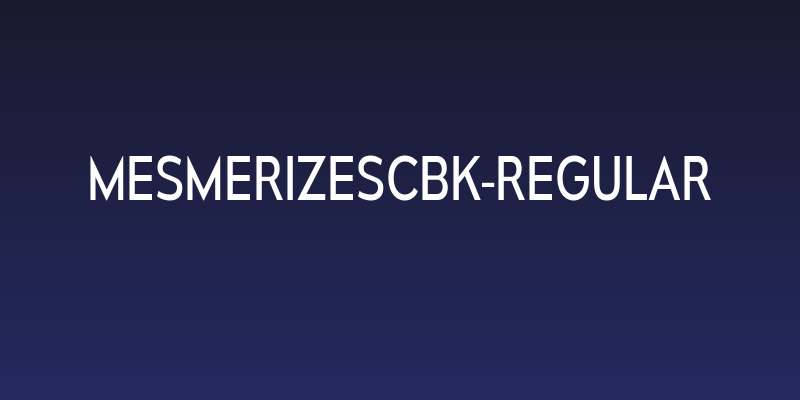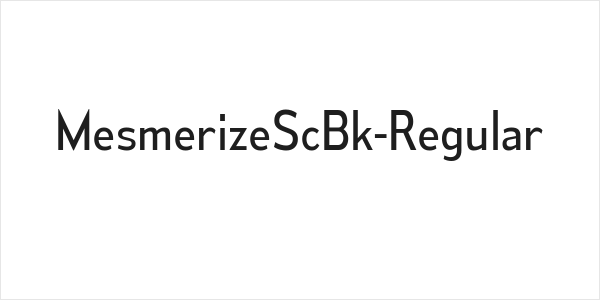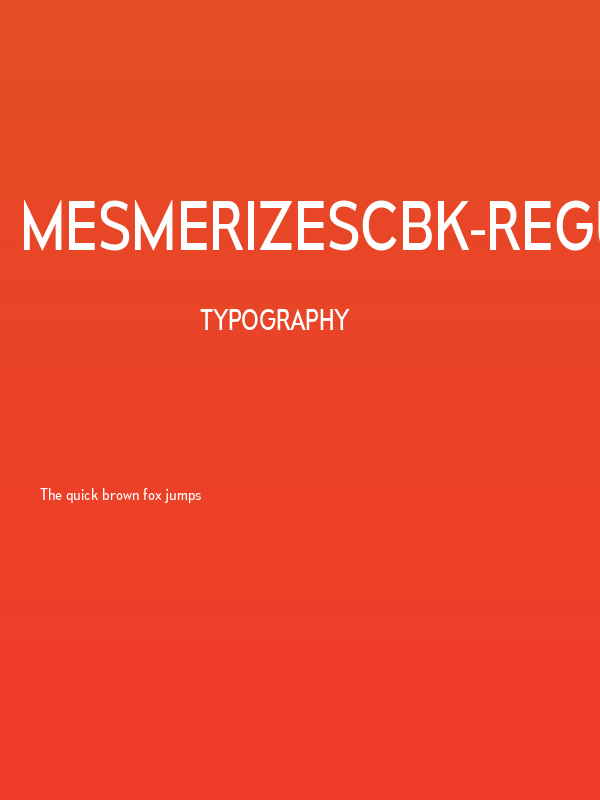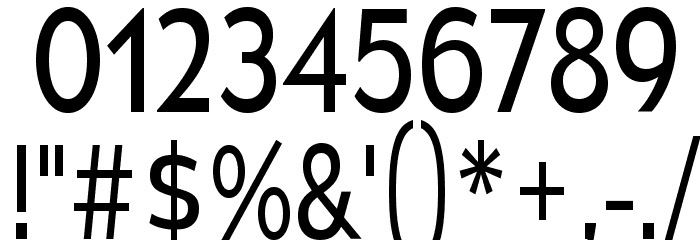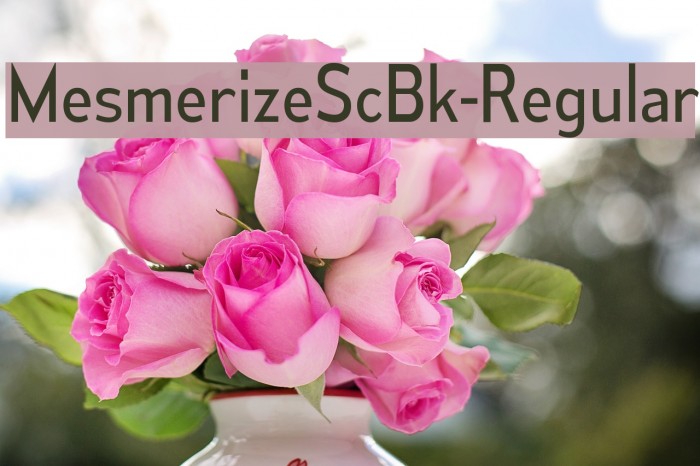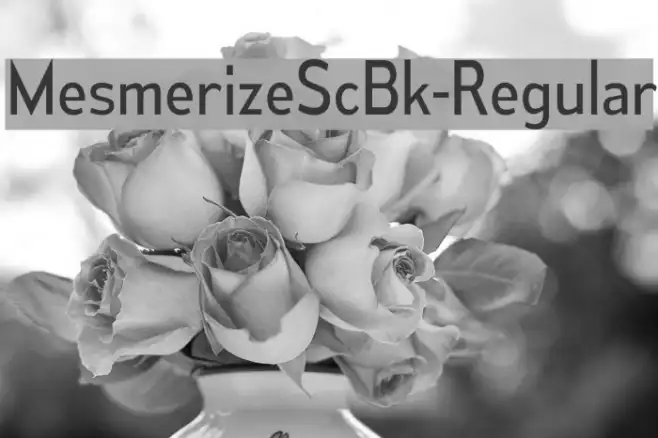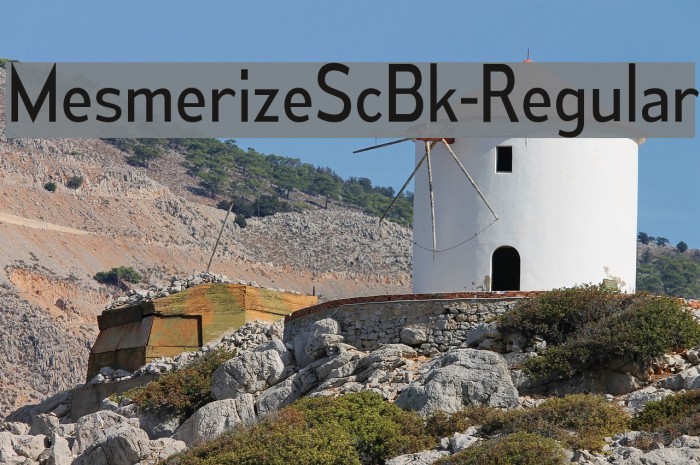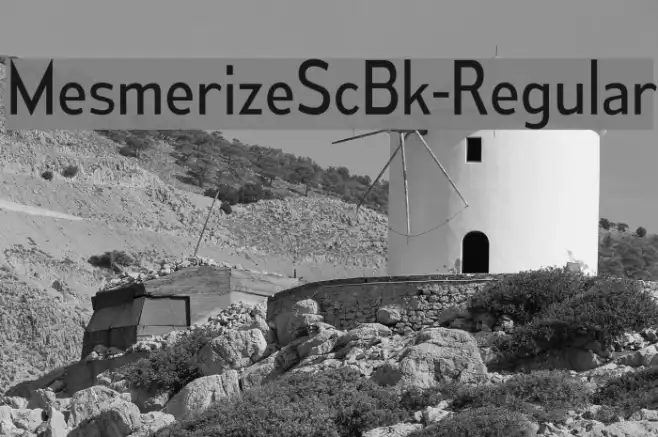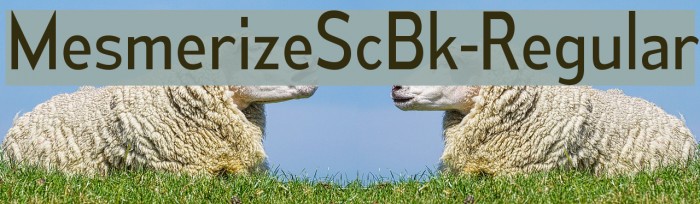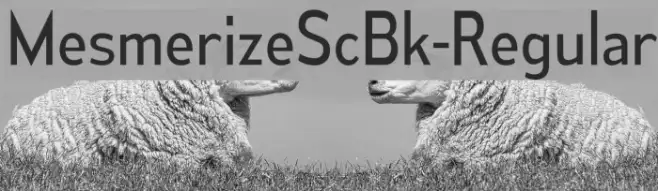
MesmerizeScBk-Regular Font
MesmerizeScBk-Regular Description
This font features a clean and modern sans-serif design with a straightforward and professional appearance. The characters are well-proportioned, offering a balanced look that is both functional and aesthetically pleasing. The uppercase and lowercase letters maintain a consistent style, with smooth curves and straight lines that enhance readability. The numerals are clear and distinct, making them suitable for various applications. Special characters are included, providing versatility for different contexts. Overall, this font is designed to convey clarity and simplicity, making it ideal for a wide range of design projects.
| Proposed Projects | Ideal for corporate branding, web design, user interfaces, and print media. |